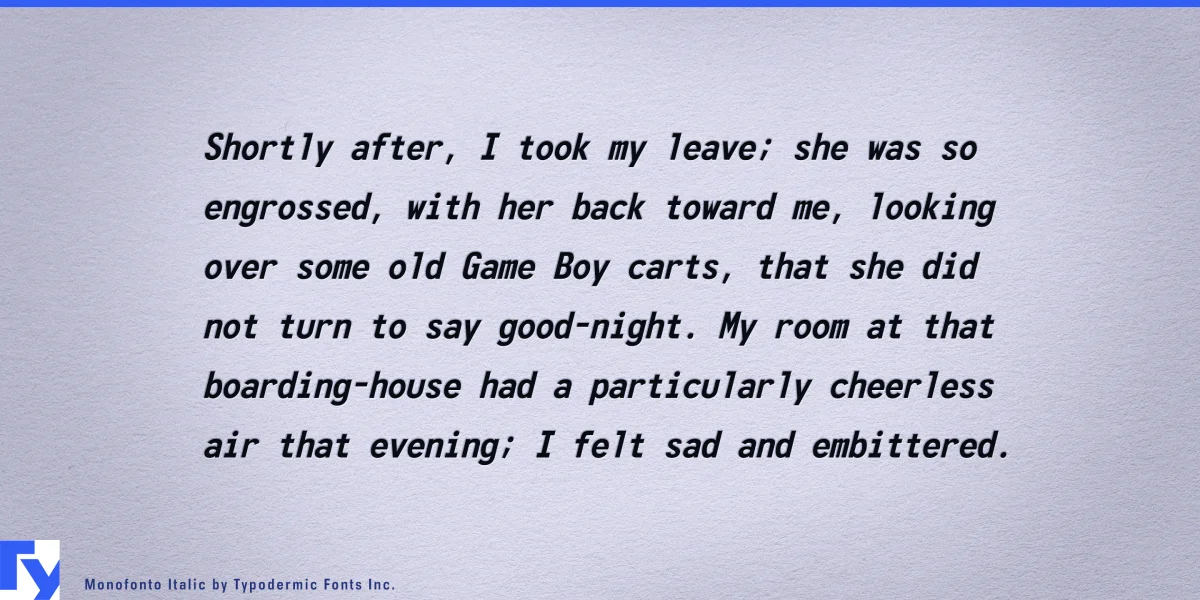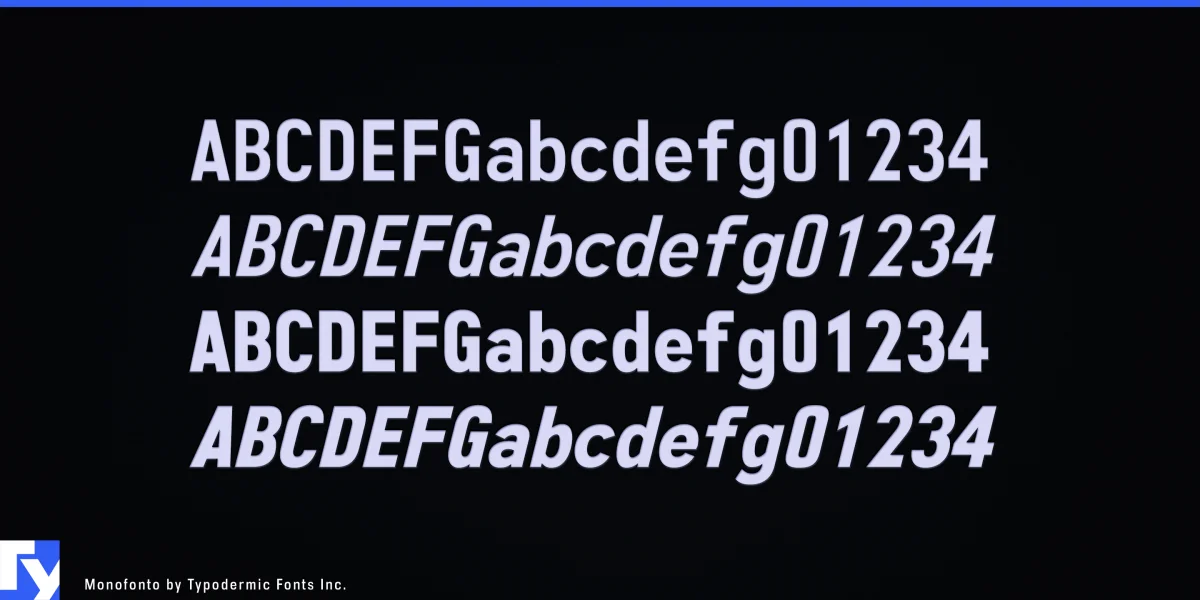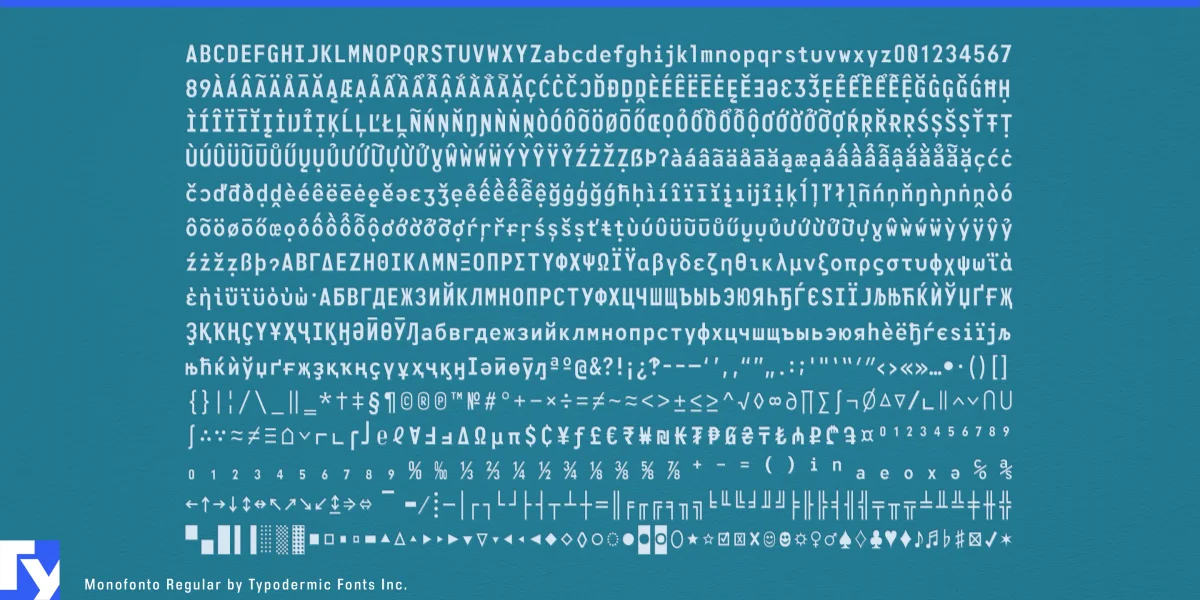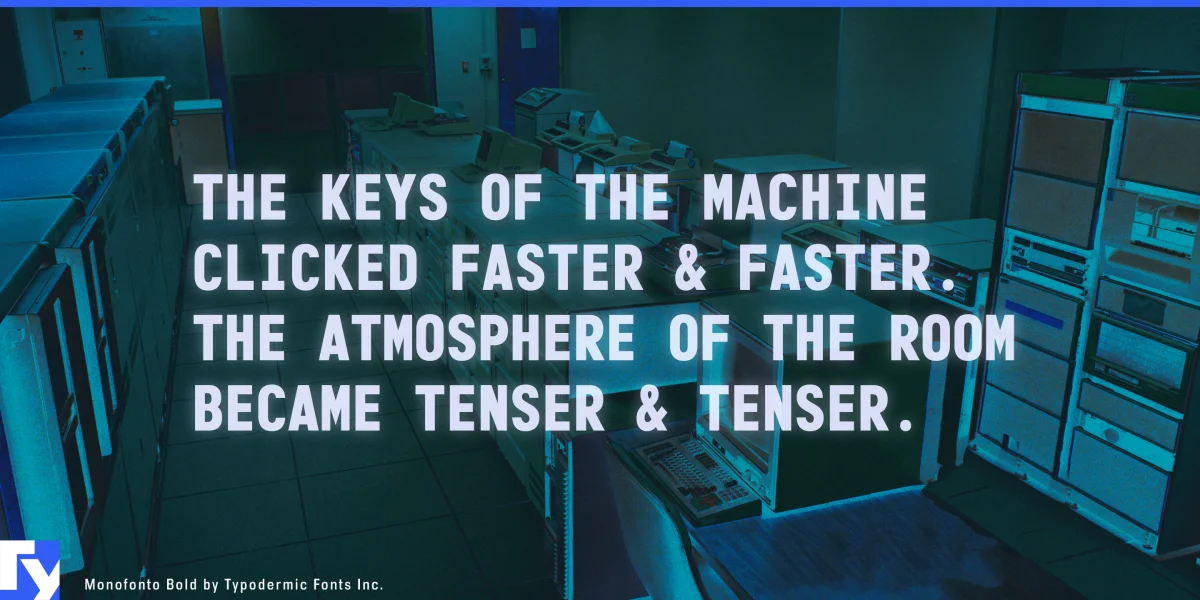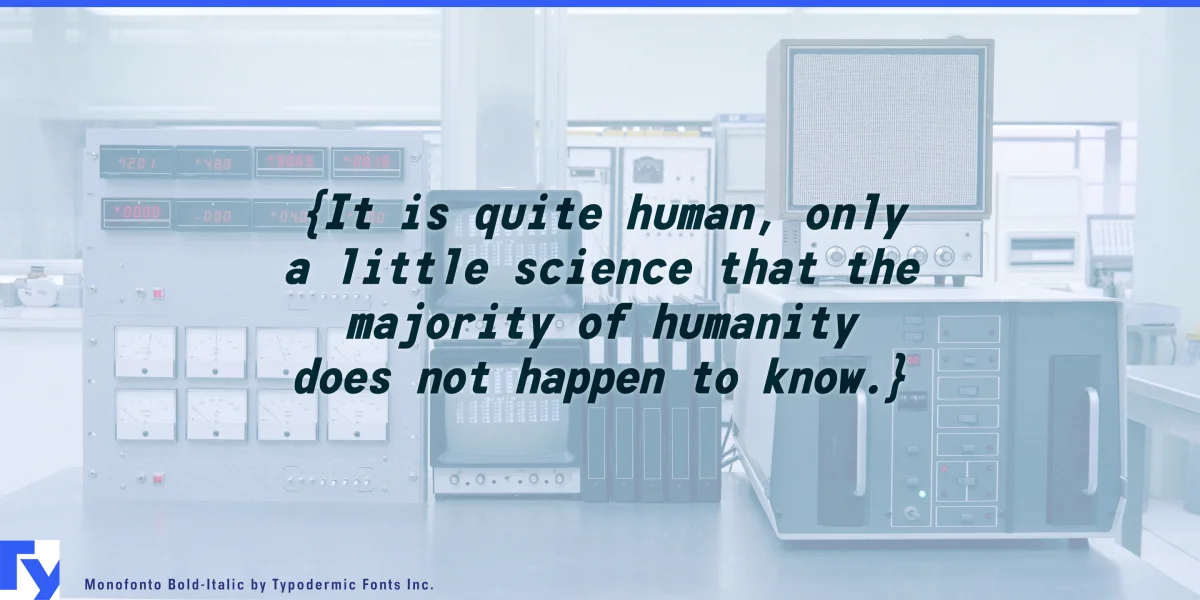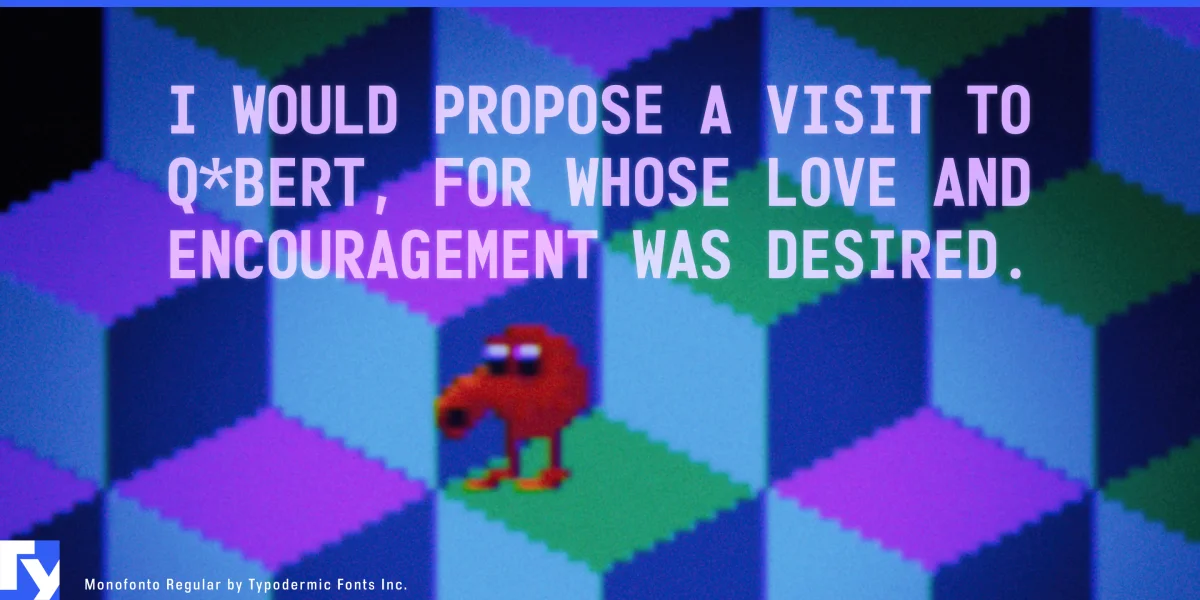
Monofonto is a technical, monospaced sans-serif typeface. Originally released in 1999, Monofonto gained popularity throughout the 2000s and was famously used in the Fallout game series. It’s a compact sans-serif with heavy strokes for extra-clarity at small sizes. Monofonto includes lots of mathematical characters, currency symbols and terminal block-draw characters. It’s available in Regular, Italic and Bold-Italic styles. Most Latin-based European, Vietnamese, Greek, and most Cyrillic-based writing systems are supported, including the following languages. Afaan Oromo, Afar, Afrikaans, Albanian, Alsatian, Aromanian, Aymara, Azerbaijani, Bashkir, Bashkir (Latin), Basque, Belarusian, Belarusian (Latin), Bemba, Bikol, Bosnian, Breton, Bulgarian, Buryat, Cape Verdean, Creole, Catalan, Cebuano, Chamorro, Chavacano, Chichewa, Crimean Tatar (Latin), Croatian, Czech, Danish, Dawan, Dholuo, Dungan, Dutch, English, Estonian, Faroese, Fijian, Filipino, Finnish, French, Frisian, Friulian, Gagauz (Latin), Galician, Ganda, Genoese, German, Gikuyu, Greenlandic, Guadeloupean Creole, Haitian Creole, Hawaiian, Hiligaynon, Hungarian, Icelandic, Igbo, Ilocano, Indonesian, Irish, Italian, Jamaican, Kaingang, Khalkha, Kalmyk, Kanuri, Kaqchikel, Karakalpak (Latin), Kashubian, Kazakh, Kikongo, Kinyarwanda, Kirundi, Komi-Permyak, Kurdish, Kurdish (Latin), Kyrgyz, Latvian, Lithuanian, Lombard, Low Saxon, Luxembourgish, Maasai, Macedonian, Makhuwa, Malay, Maltese, Māori, Moldovan, Montenegrin, Nahuatl, Ndebele, Neapolitan, Norwegian, Novial, Occitan, Ossetian (Latin), Papiamento, Piedmontese, Polish, Portuguese, Quechua, Rarotongan, Romanian, Romansh, Russian, Rusyn, Sami, Sango, Saramaccan, Sardinian, Scottish Gaelic, Serbian, Serbian (Latin), Shona, Sicilian, Silesian, Slovak, Slovenian, Somali, Sorbian, Sotho, Spanish, Swahili, Swazi, Swedish, Tagalog, Tahitian, Tajik, Tatar, Tetum, Tongan, Tshiluba, Tsonga, Tswana, Tumbuka, Turkish, Turkmen (Latin), Tuvaluan, Ukrainian, Uzbek, Uzbek (Latin), Venda, Venetian, Vepsian, Vietnamese, Võro, Walloon, Waray-Waray, Wayuu, Welsh, Wolof, Xavante, Xhosa, Yapese, Zapotec, Zarma, Zazaki, Zulu and Zuni.